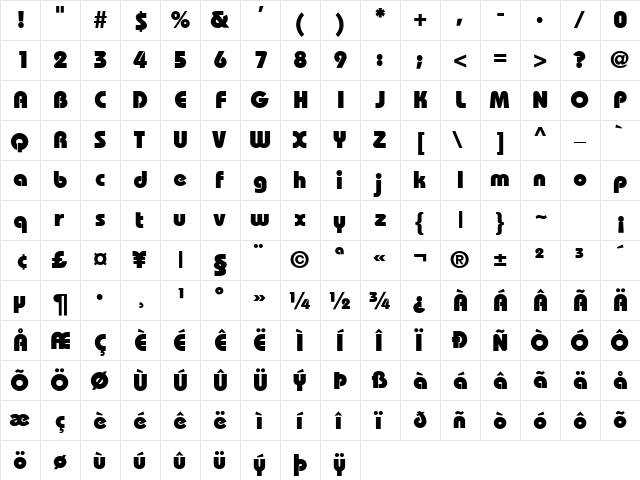
BahamasHeavy Regular
Design Context for BahamasHeavy Typeface
BahamasHeavy takes a measured approach to typography — its balanced proportions and neutral character make it a reliable workhorse for both digital and print work.